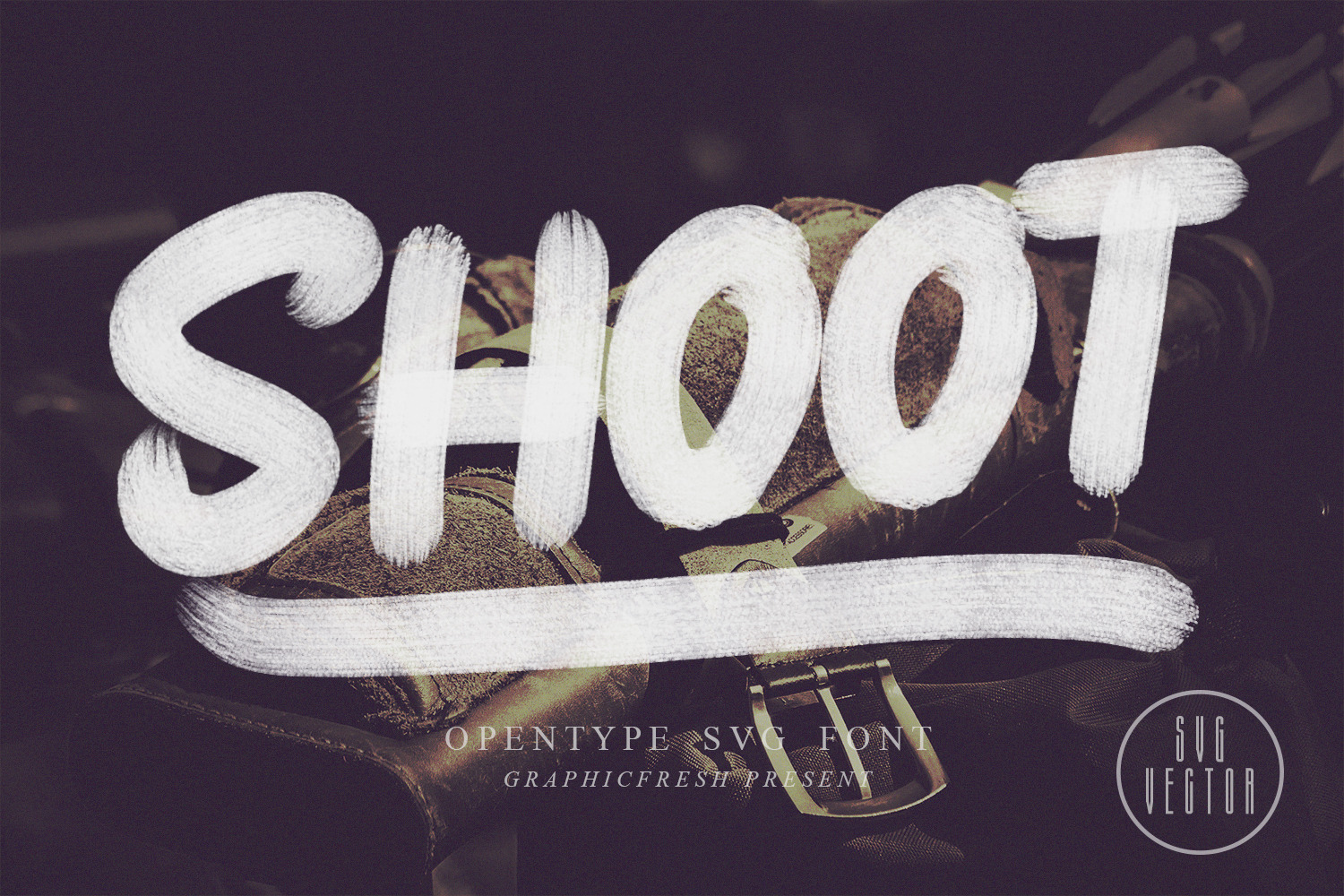
Shoot SVG Font
Shoot is a font made with oil texture. The level of accuracy contained in this font is very sharp, so you will find it exactly as we paint oil with a brush.
Brush Display Font
This is a large and very attractive brush display font view, with a little rough style. It will be perfect for posters, packaging, advertisements, headlines, branding, signboards, and whatever else you want from an urban look and feel.